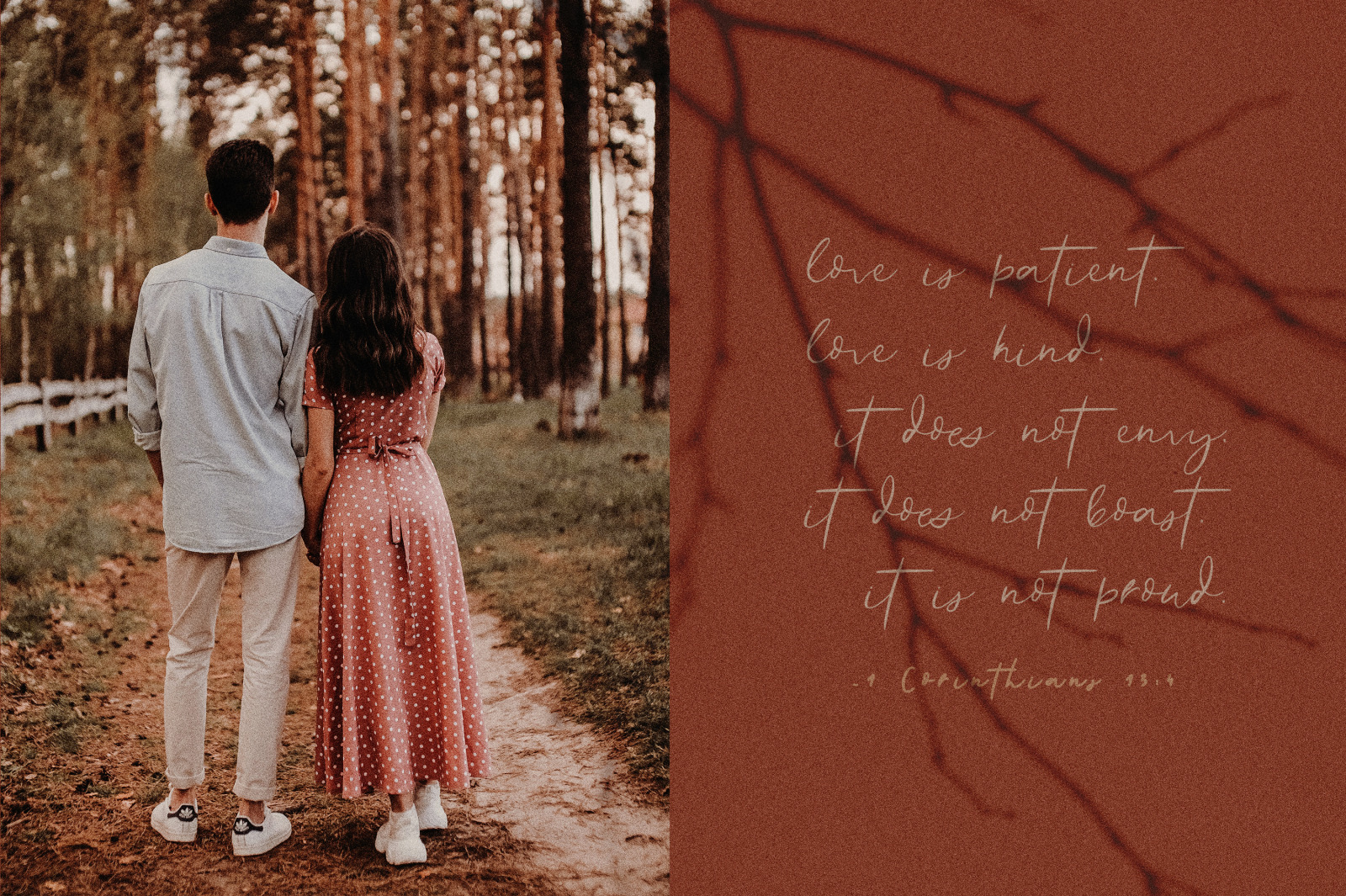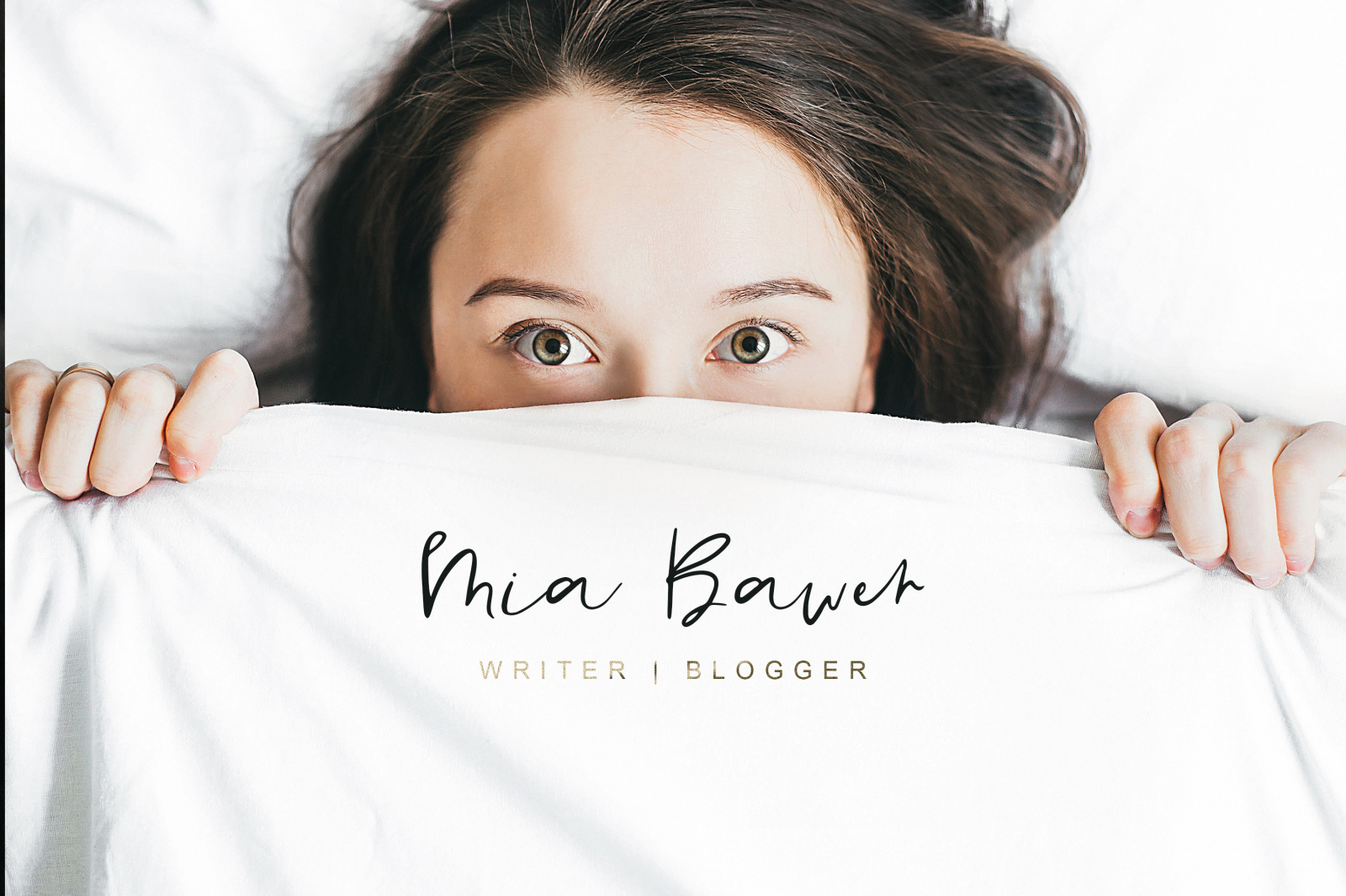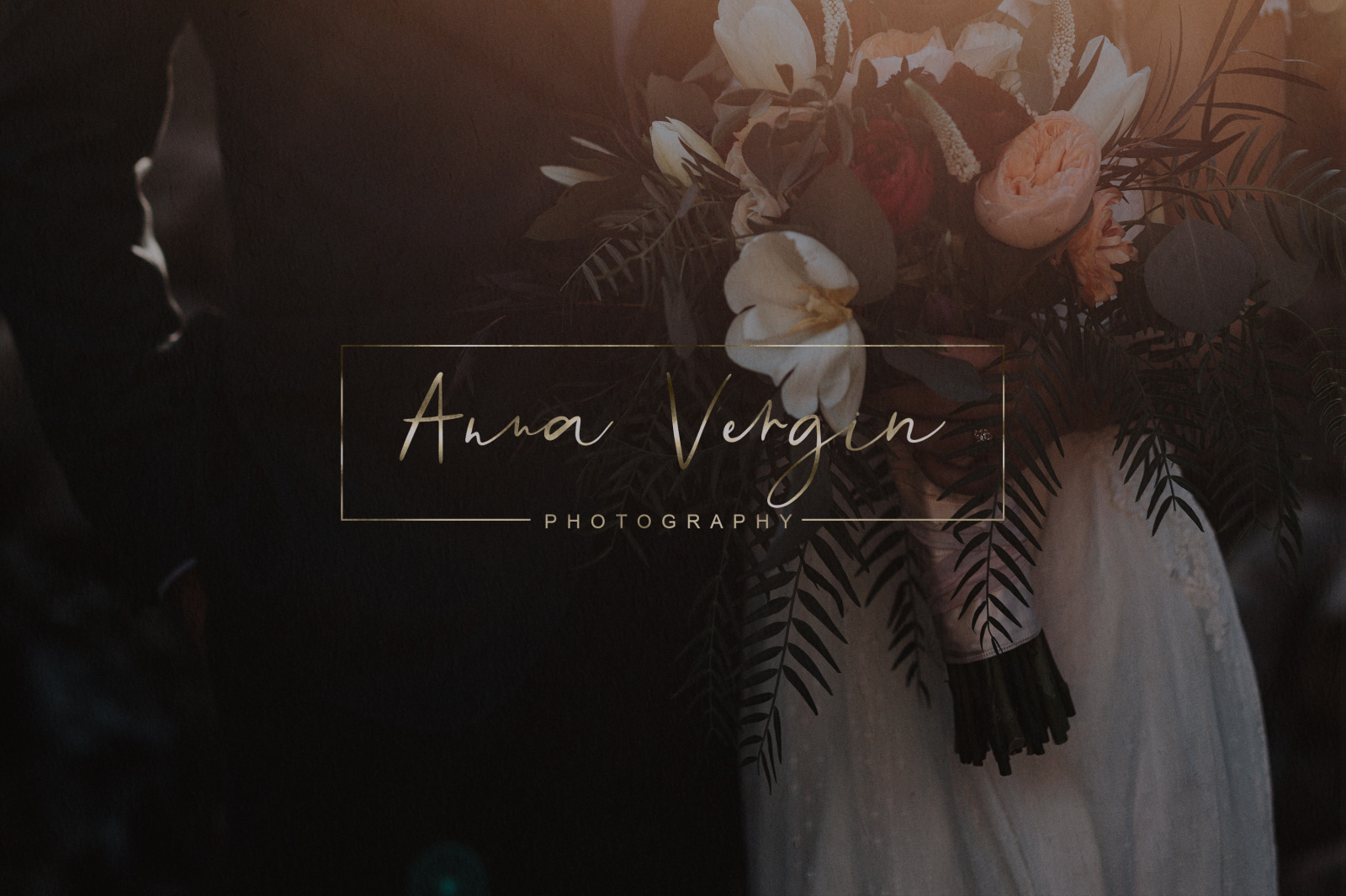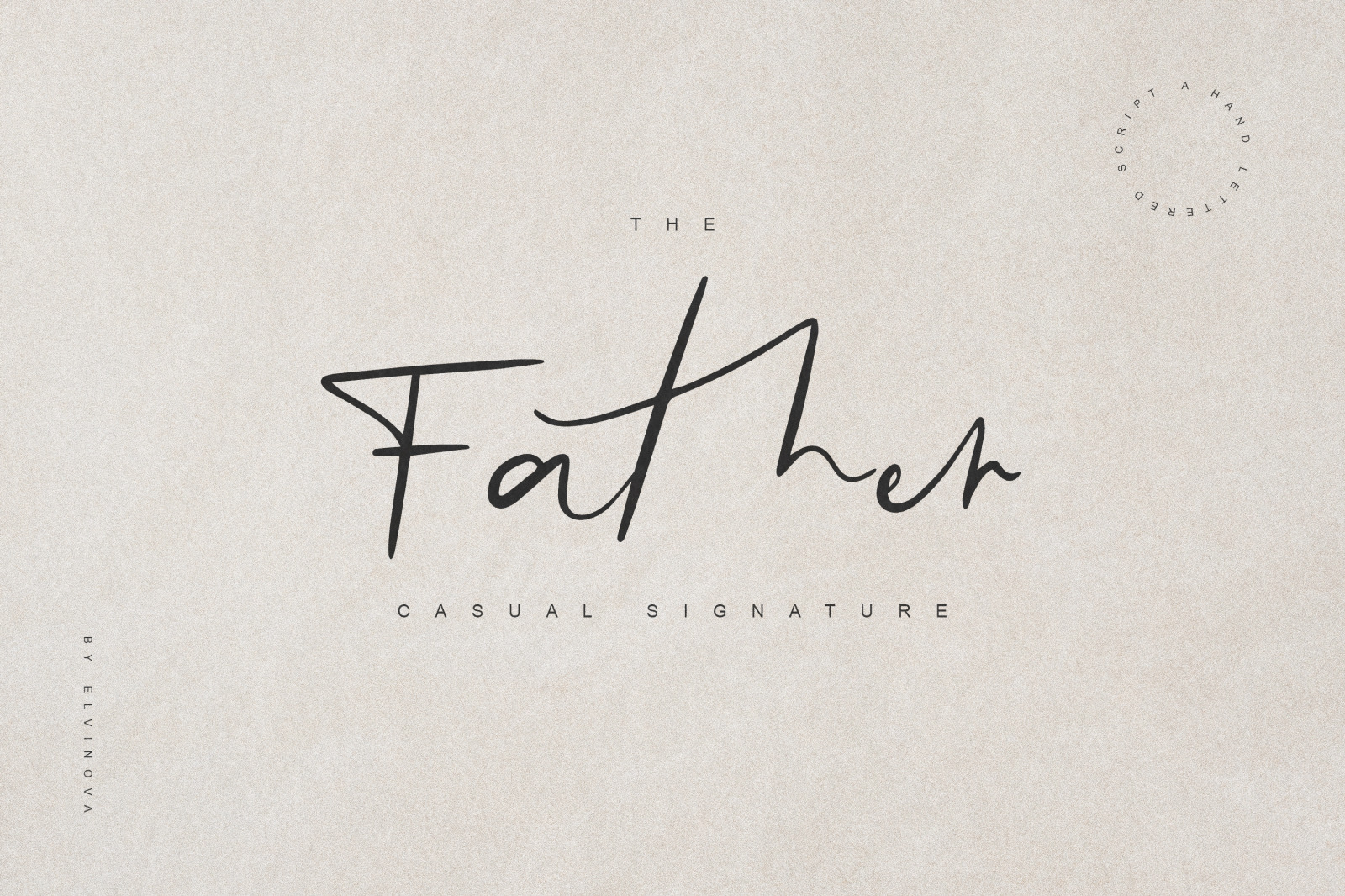
Father Casual Script Font
The Father is a casual script font with upper & lowercase letters, numbers & punctuation, ligatures, multilingual support. Free updates!